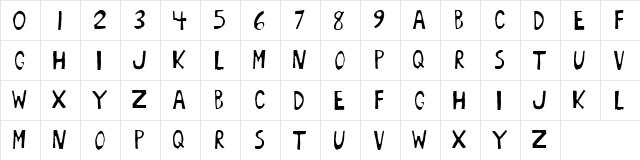
BoArust beta
Design Context for BoArust Typeface
BoArust is a composed and adaptable typeface that performs quietly and consistently across a wide range of design contexts.